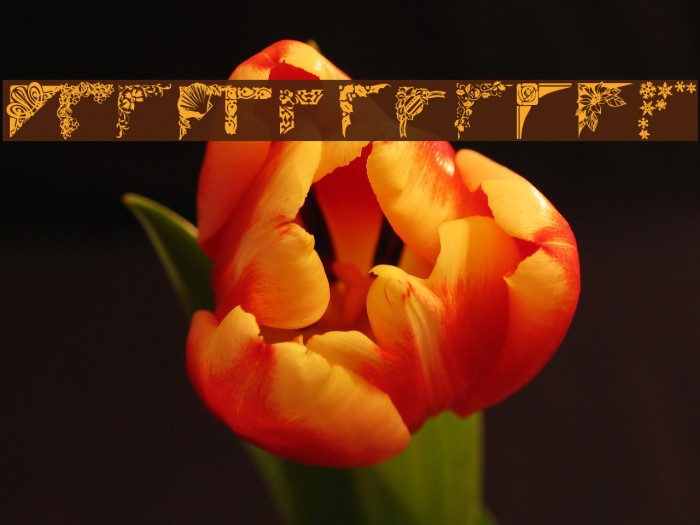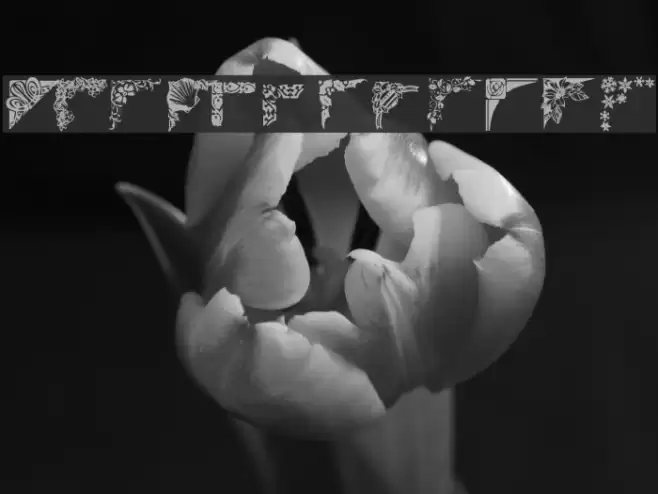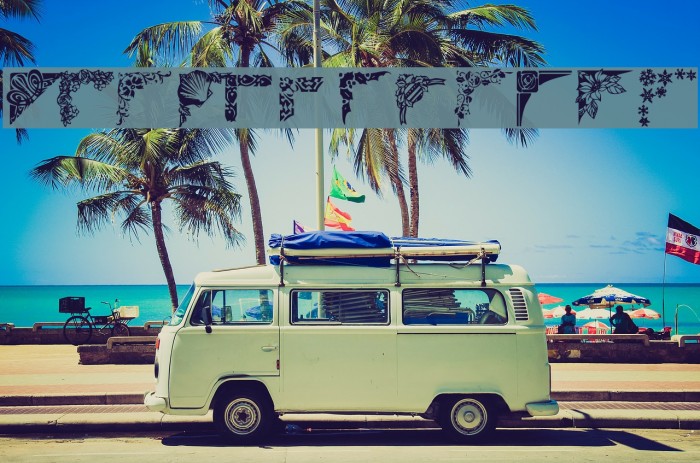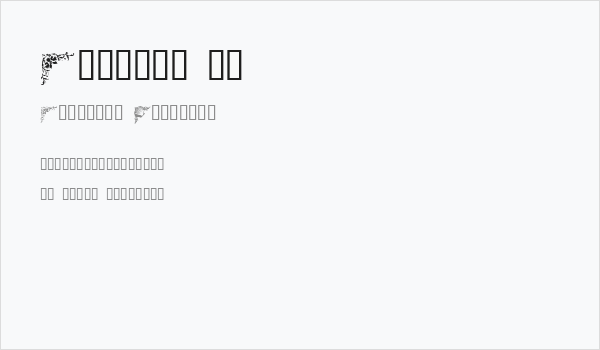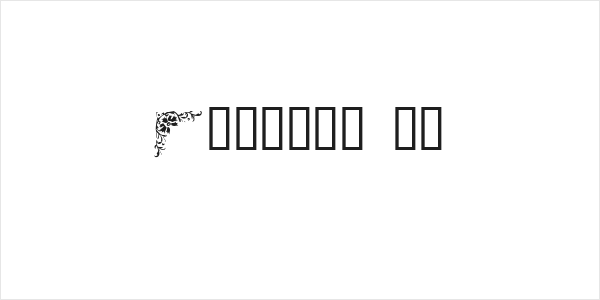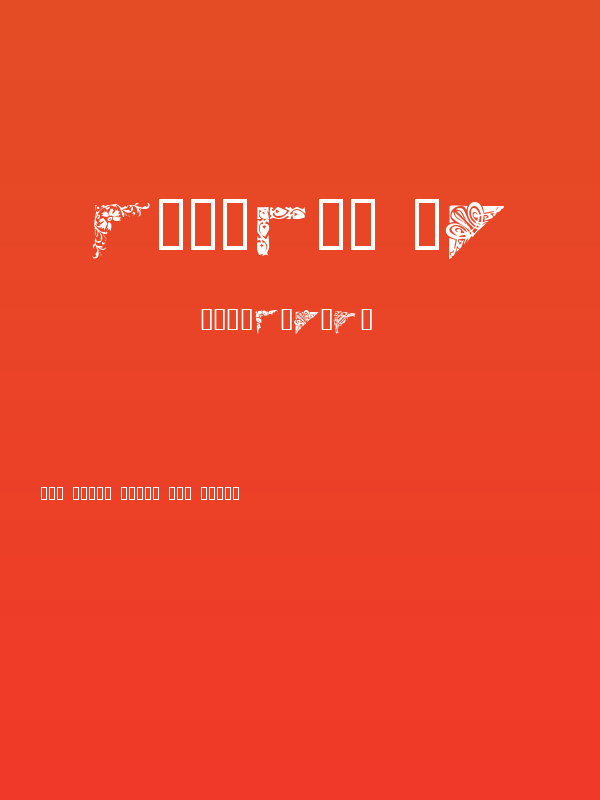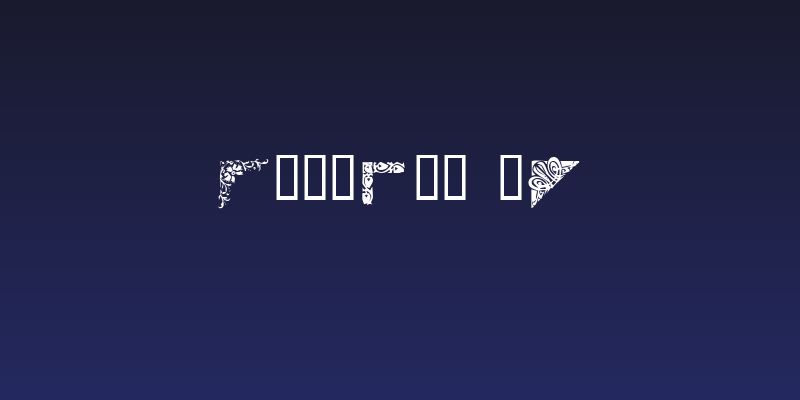
Corners 1a Font
Corners 1a Description
A decorative display set featuring ornate corner embellishments with floral and geometric motifs, designed to be used as ornamental borders or accents rather than standard letterforms.
Overall StyleDecorative, Vintage
Use CaseBorders, Frames, Accents
Proposed ProjectsInvitations, certificates, decorative frames, scrapbooking, vintage-themed designs.